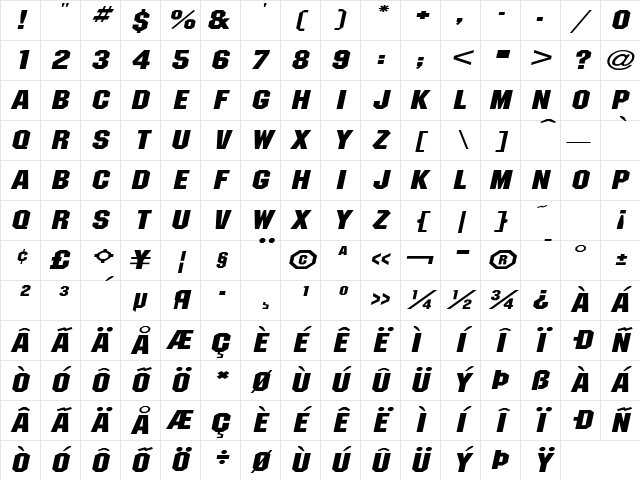
PittsburghExtended Oblique
Design Context for PittsburghExtended
PittsburghExtended is a composed and adaptable typeface that performs quietly and consistently across a wide range of design contexts. The slanted form adds forward momentum and visual energy.
Pro Tip: Use PittsburghExtended for emphasis, pull quotes, and subheadings where its slanted energy can add rhythm to the layout.